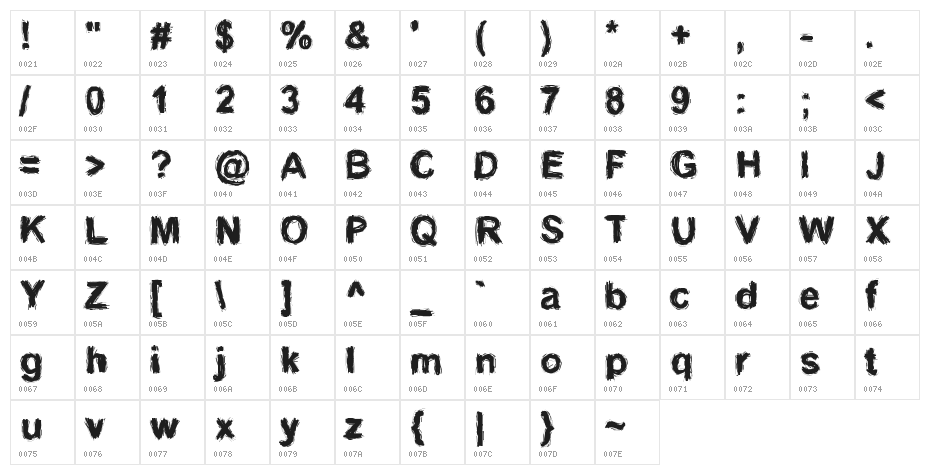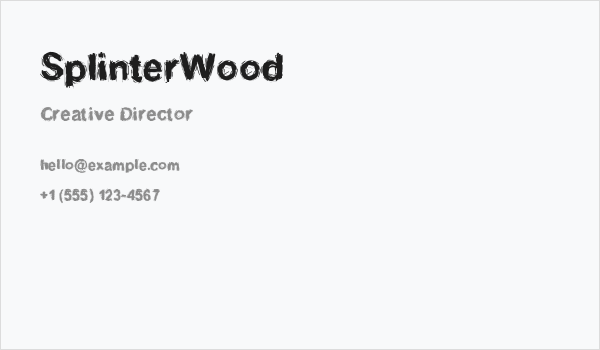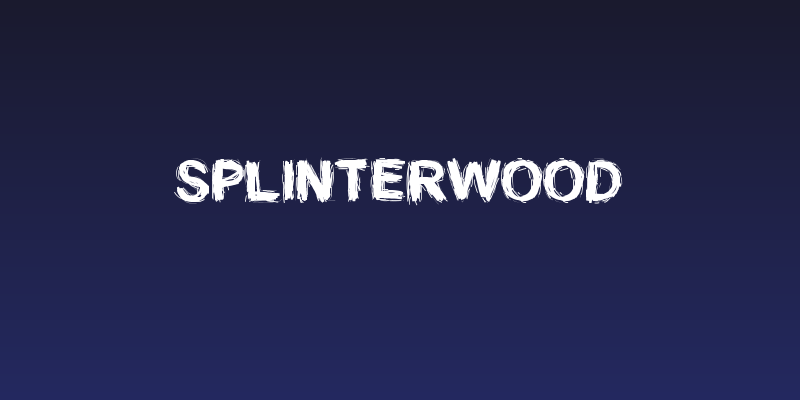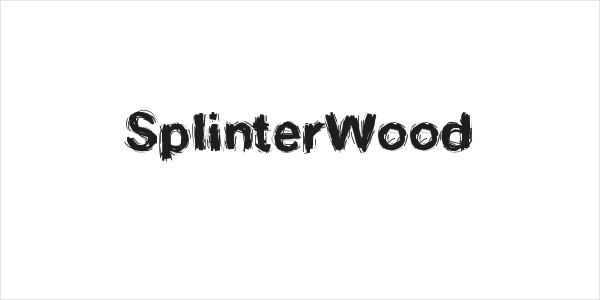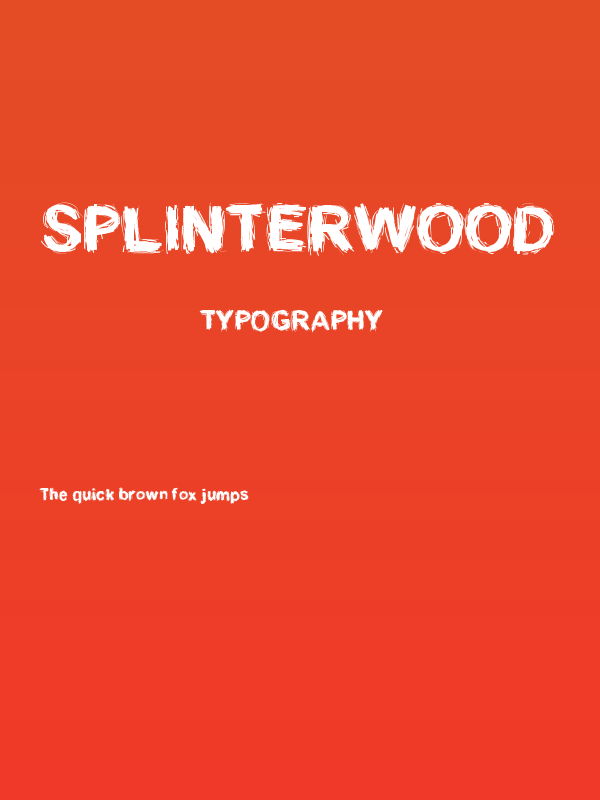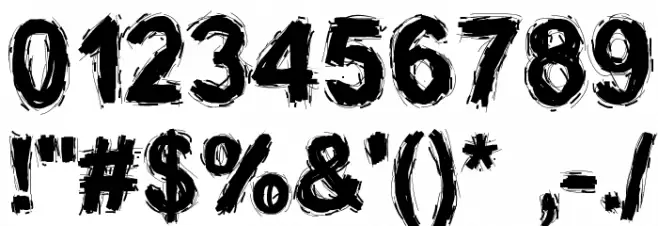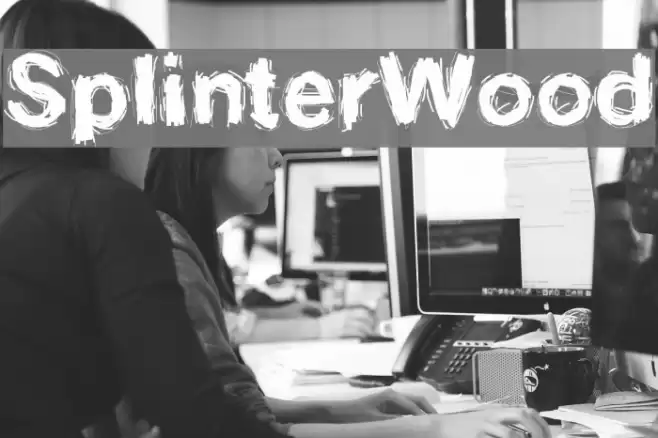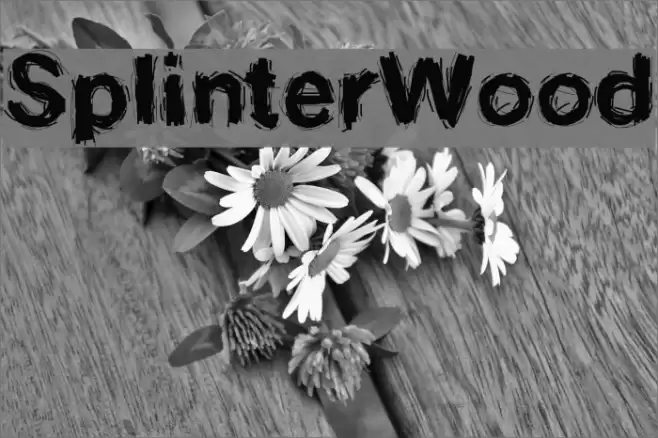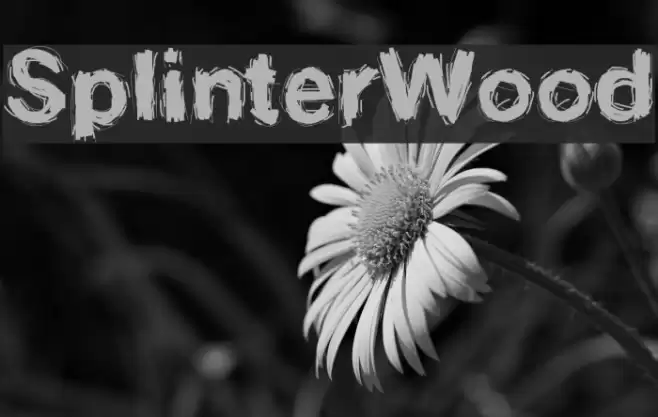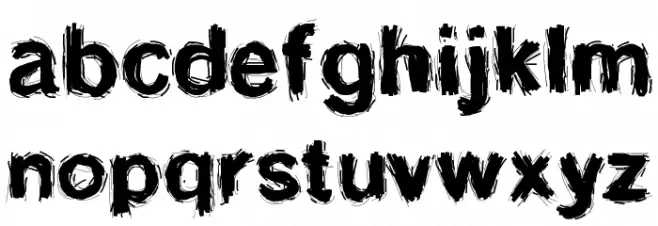
SplinterWood Font
SplinterWood Description
This font features a rugged, textured appearance reminiscent of splintered wood, giving it a unique and organic feel. The strokes are uneven and jagged, creating a sense of movement and energy. Each character appears as if it has been carved or scratched, adding to its rustic charm. The uppercase and lowercase letters maintain a consistent style, with bold, thick lines that vary in width, enhancing the font's dynamic look. Numbers and special characters follow the same design principles, ensuring a cohesive appearance across all elements.
SPLINTERWOOD UPPERCASE
SPLINTERWOOD LOWERCASE
SPLINTERWOOD OTHER CHARS
| Overall Style | Rustic, Organic, Energetic |
| Proposed Projects | Ideal for projects requiring a natural, rustic aesthetic such as outdoor event posters, eco-friendly product packaging, or adventure-themed branding. |